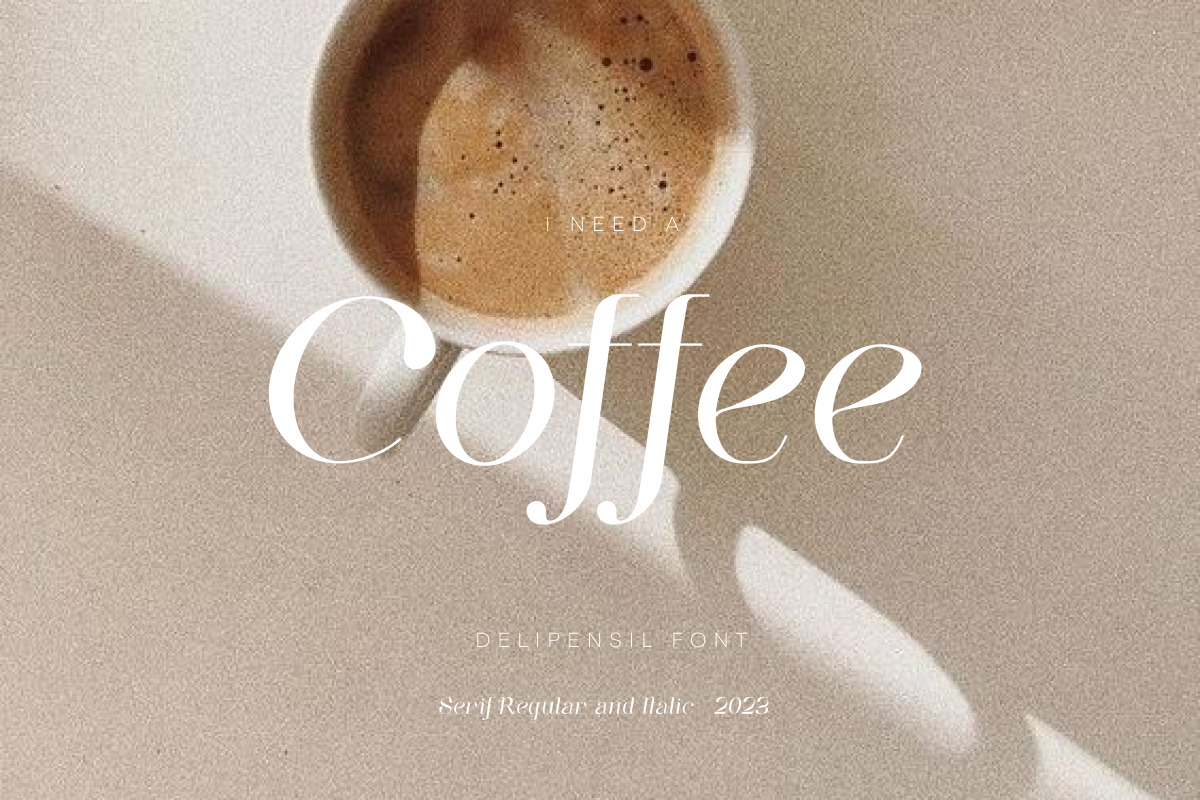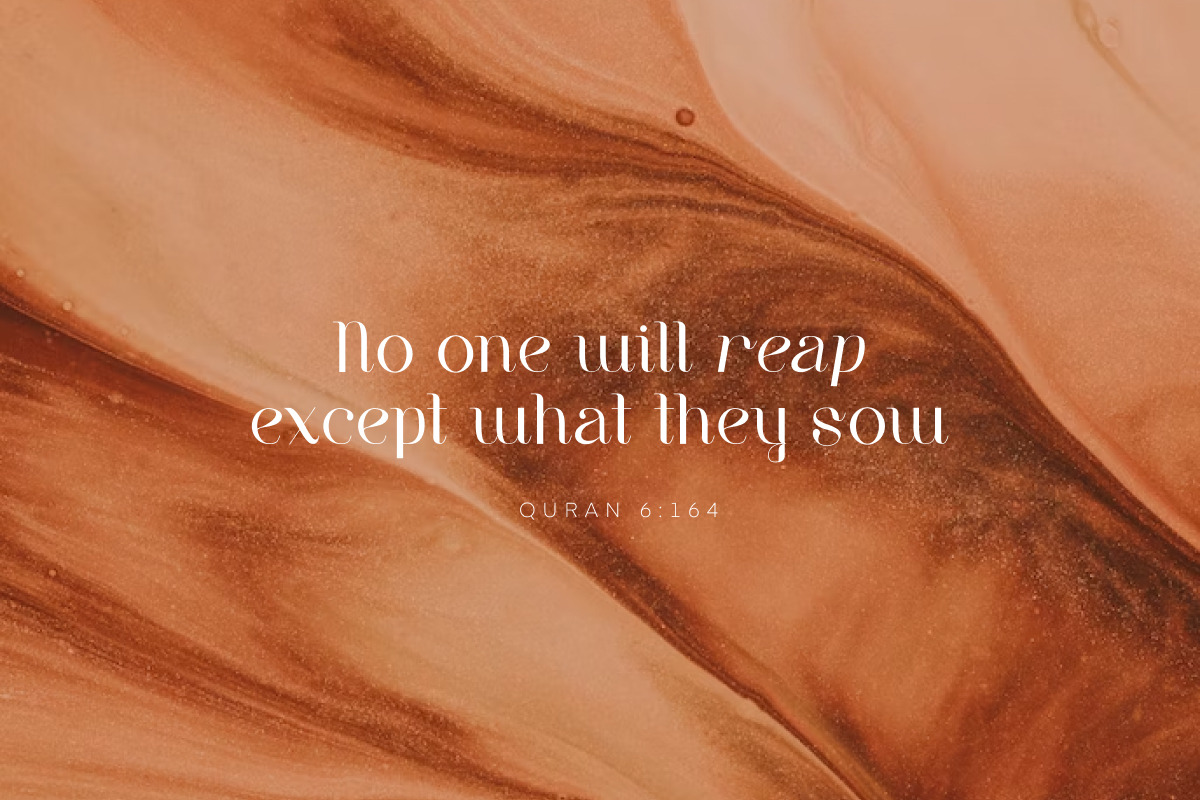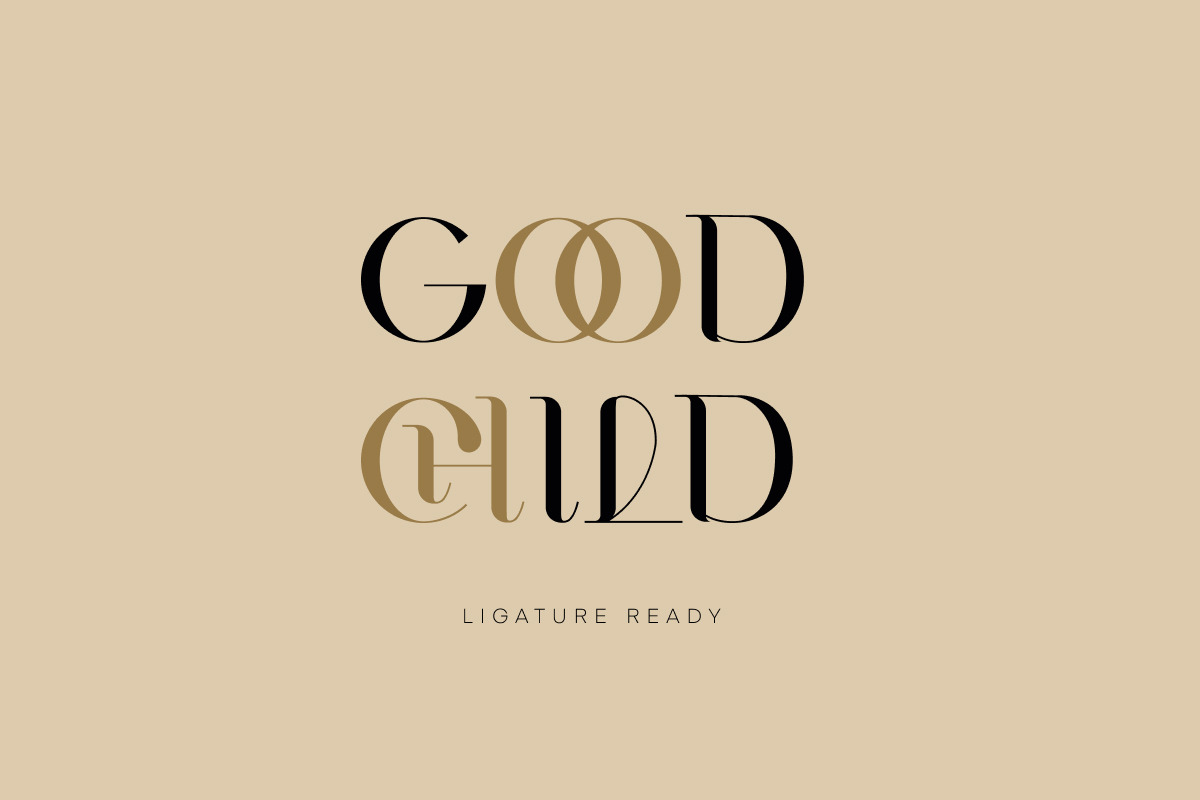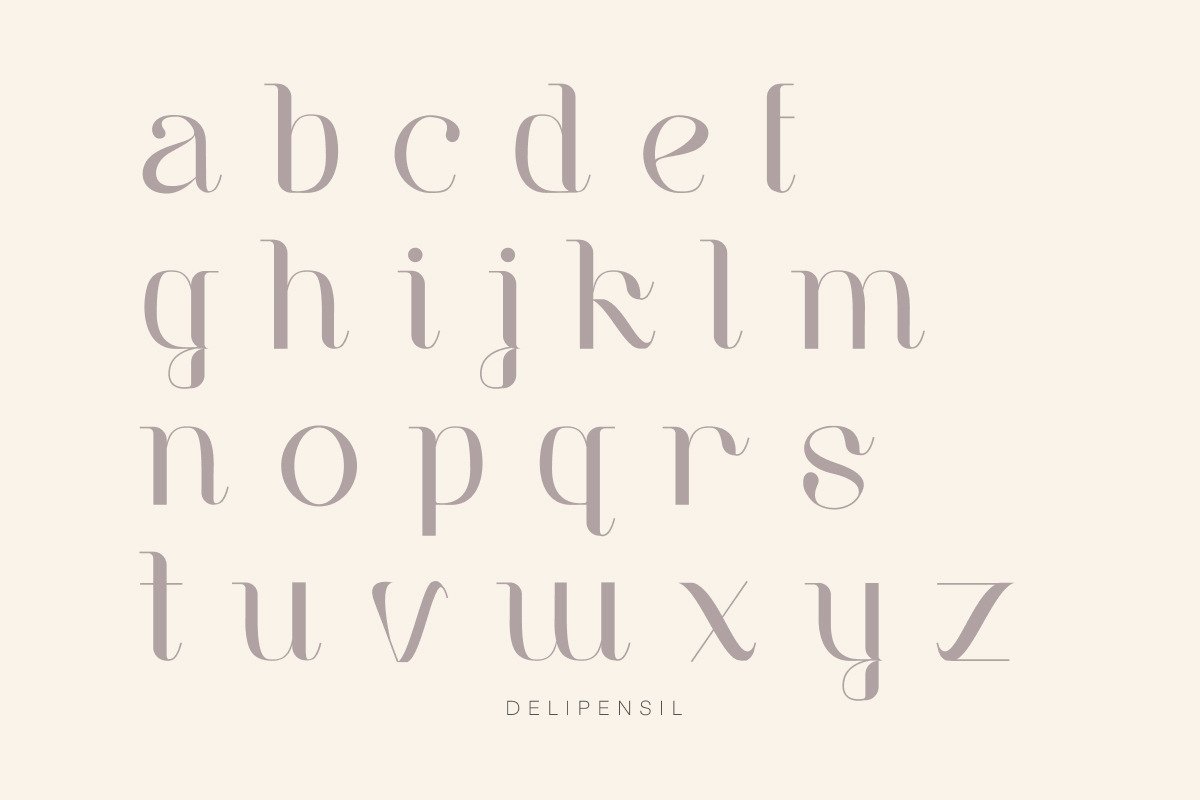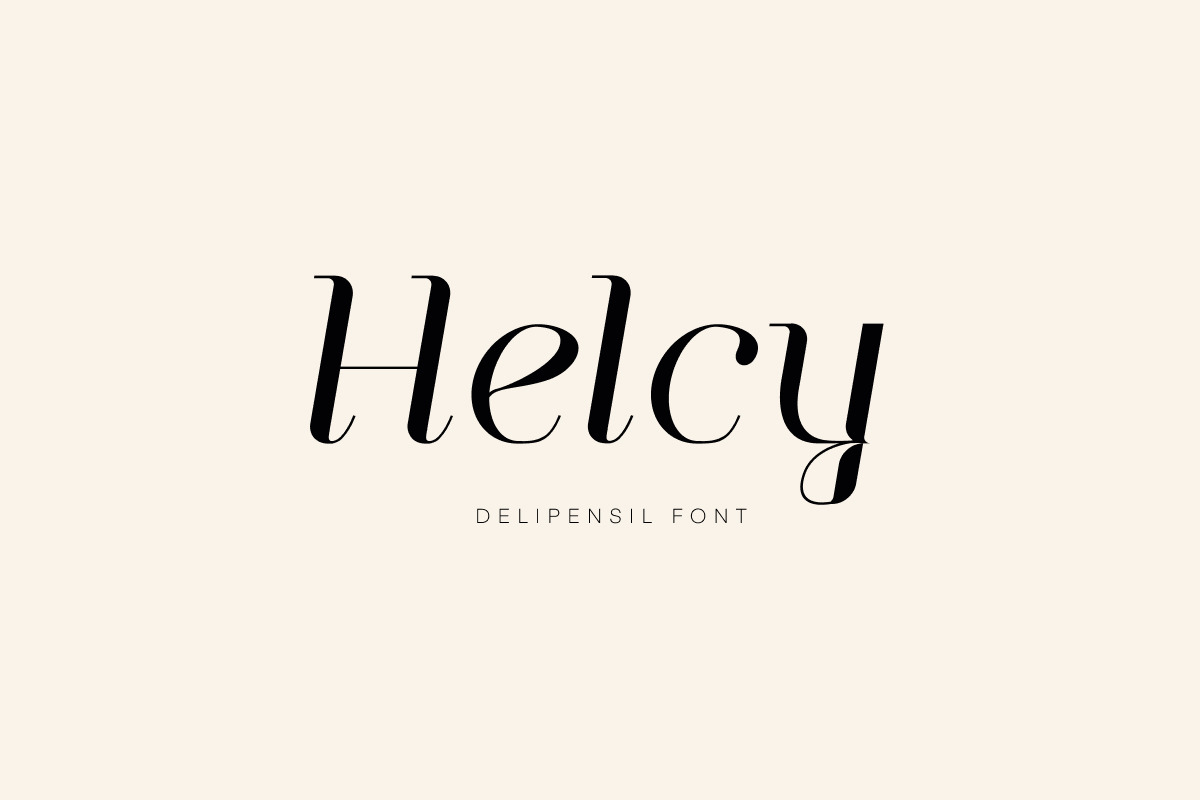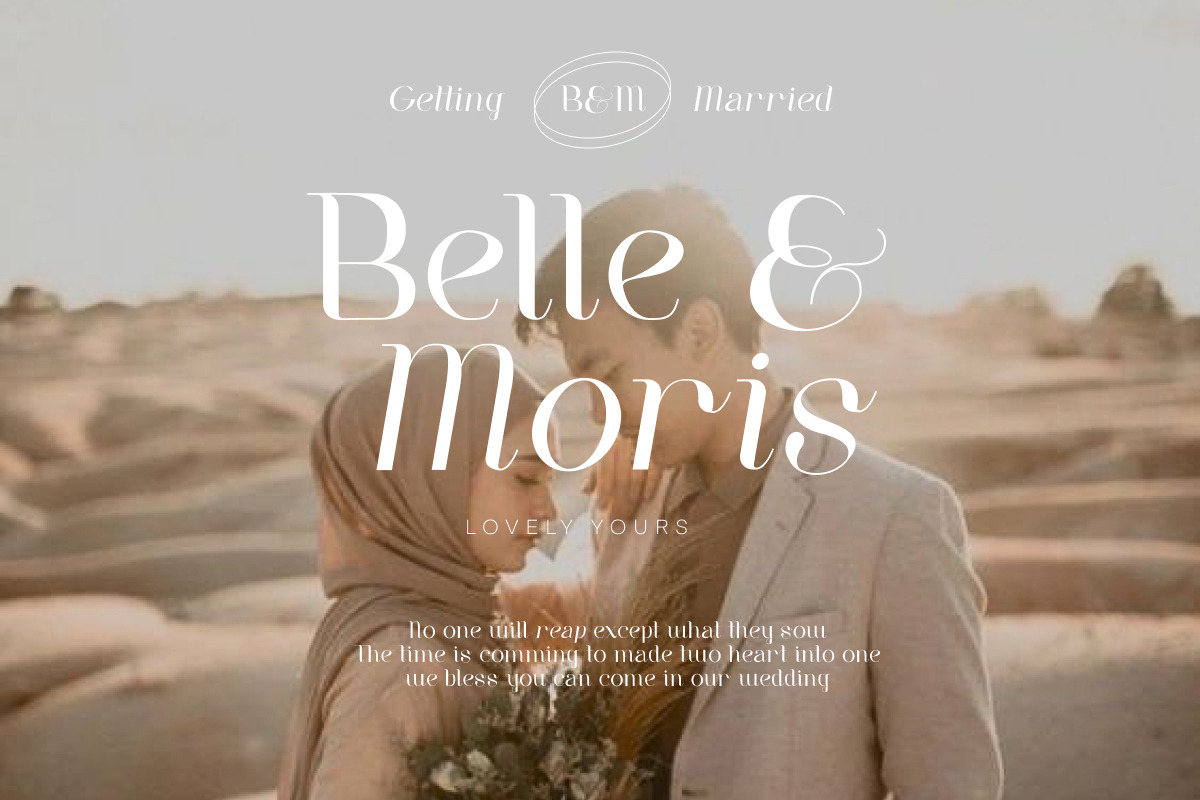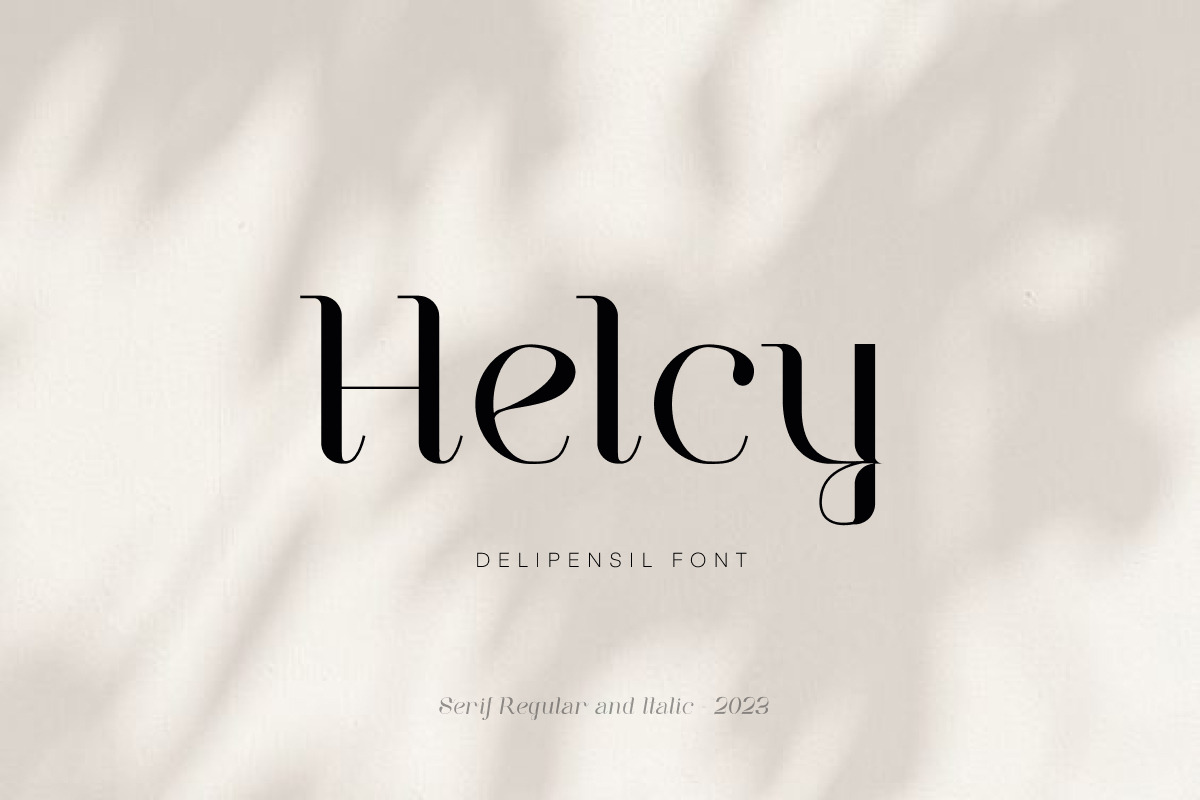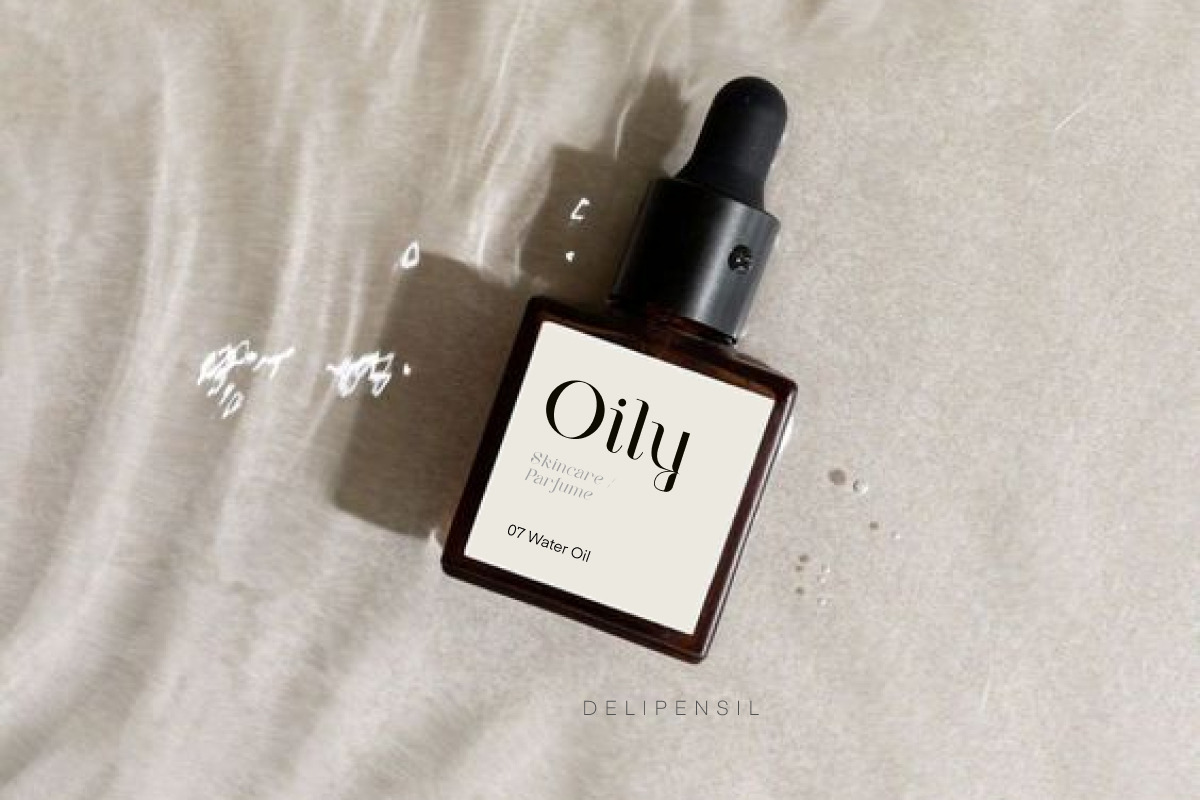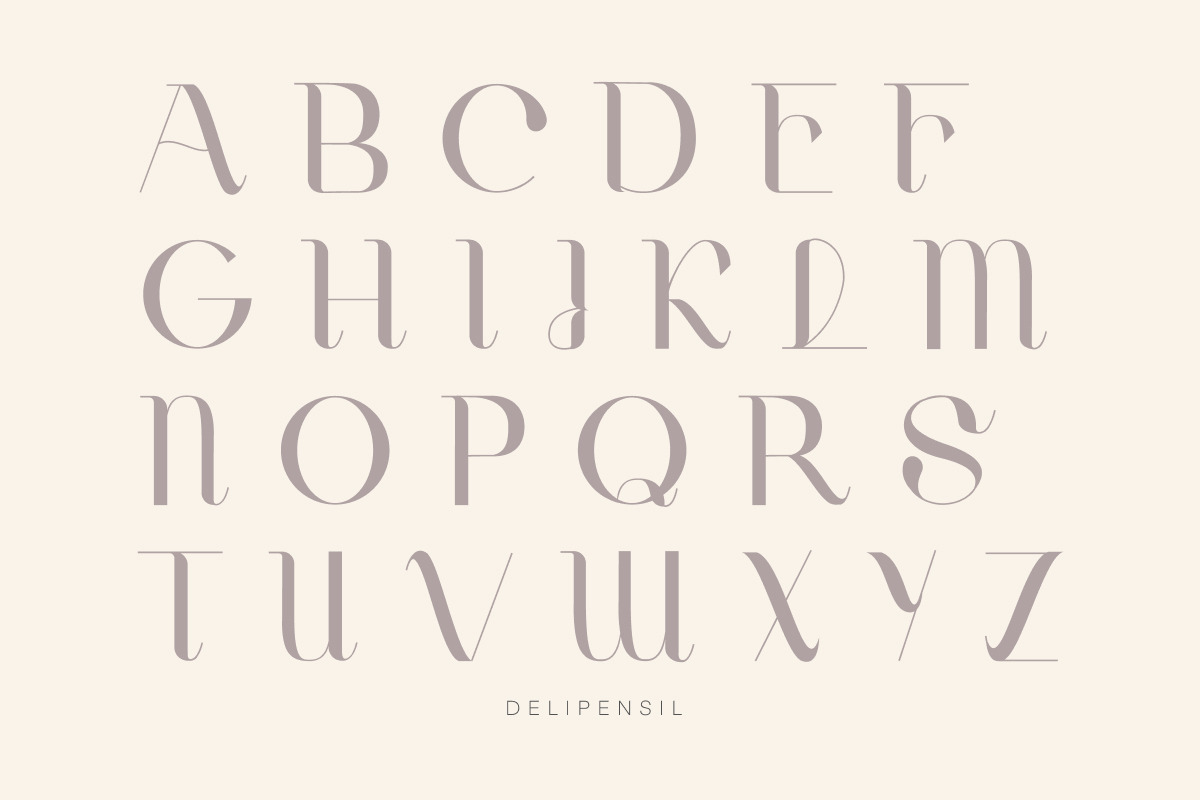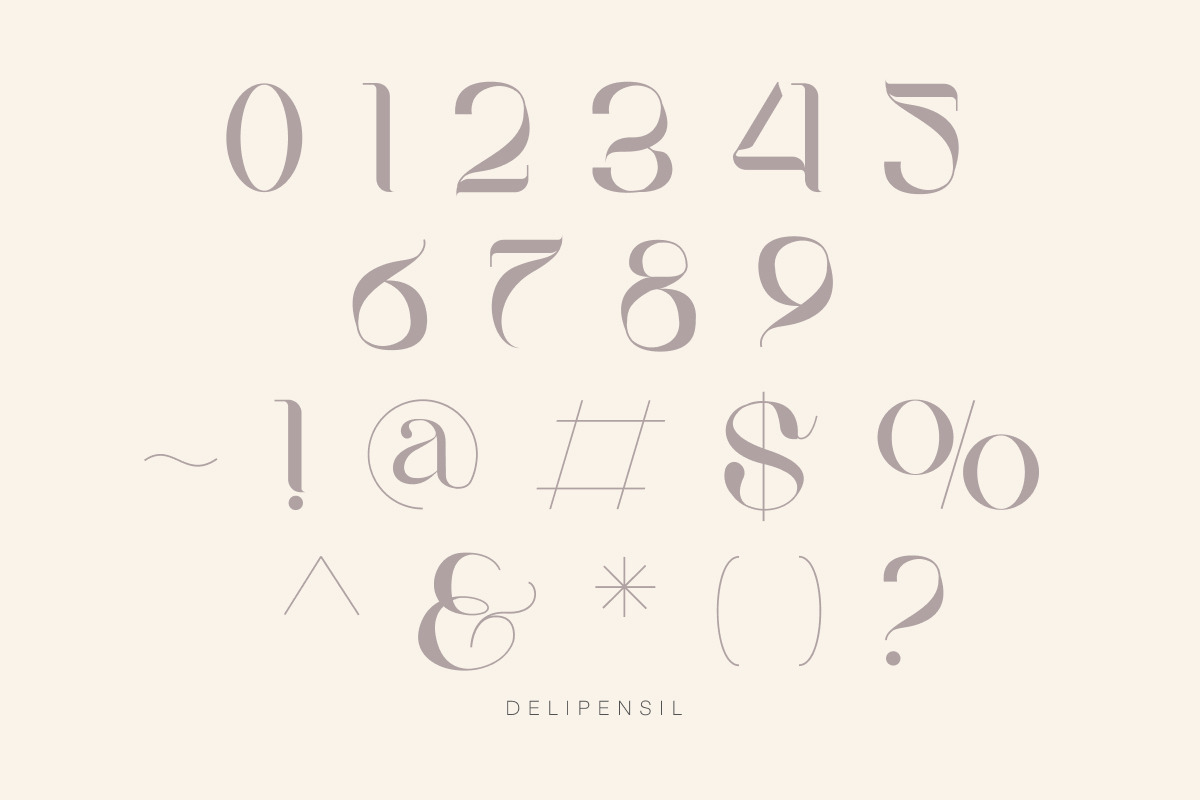
Helcy - Elegant Serif Font
Bismillah, Introduction Helcy - Elegant Serif Typeface
Beauty Serif font, clean classic and mindful , it combine in one font, use this font for anything beauty place for your logo, headline, cover book, magazine and many more
- Helcy Kerning Style
- Helcy Ligature Style